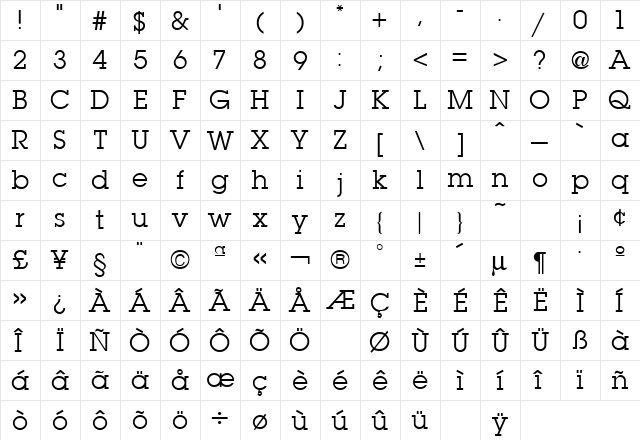
Lubalin Graph Book Regular
Design Context for Lubalin Graph Book Typeface
Lubalin Graph Book takes a measured approach to typography — its balanced proportions and neutral character make it a reliable workhorse for both digital and print work.